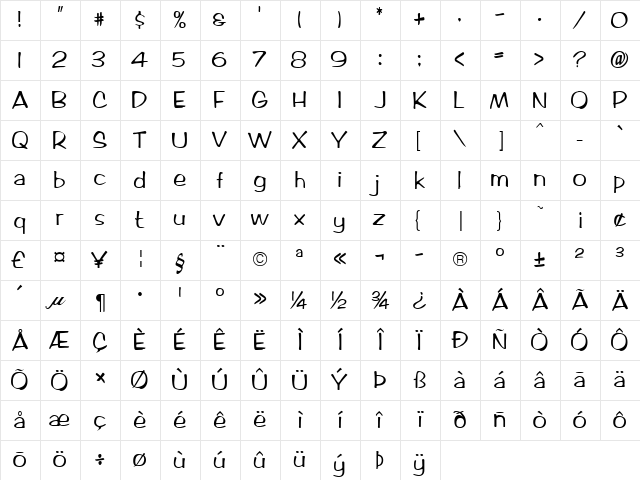
Complete Artix Becker Normal glyph index. Displaying only characters natively supported by Artix Becker Normal font.
Artix Becker is a composed and adaptable typeface that performs quietly and consistently across a wide range of design contexts.